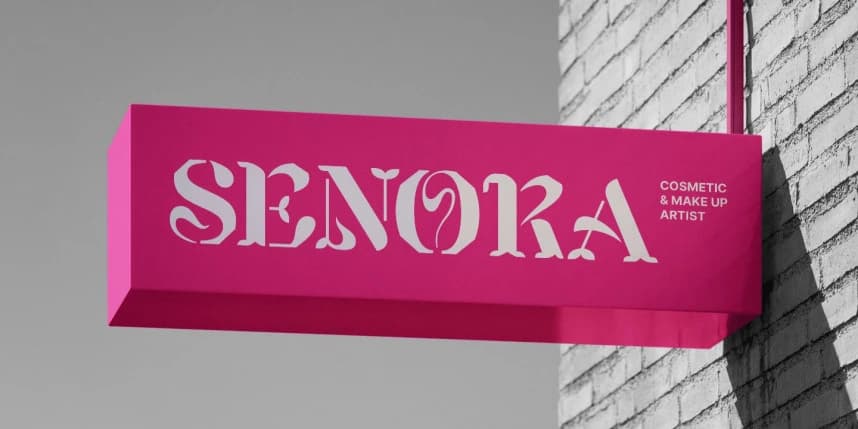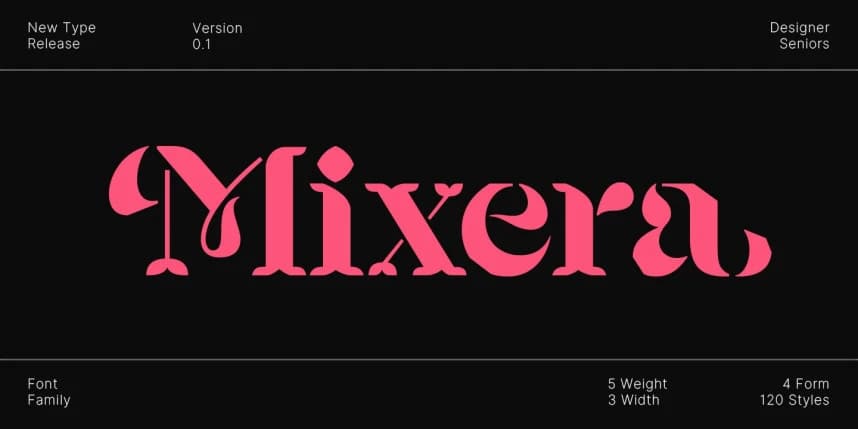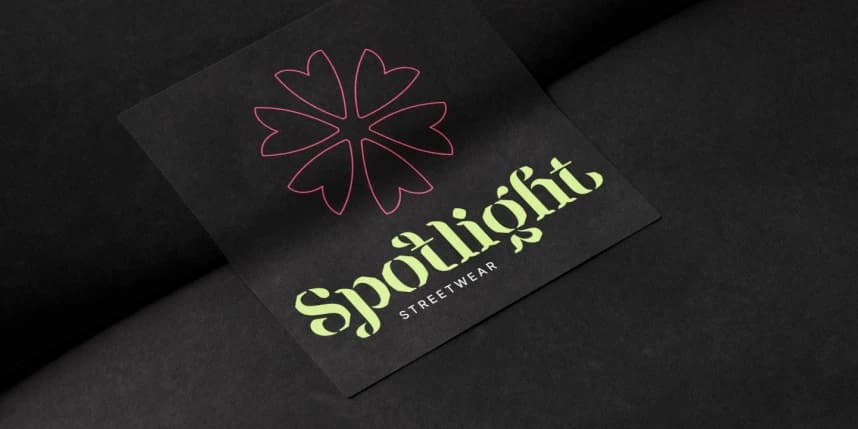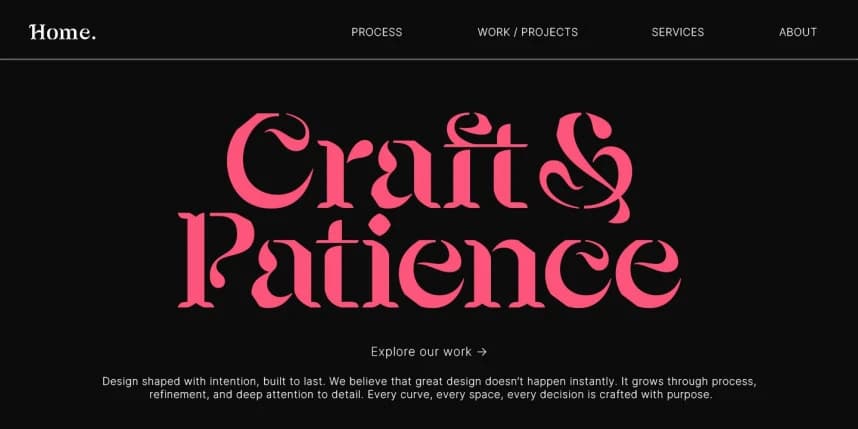
Mixera Font Family is a contemporary serif typeface that blends hybrid forms with a geometric foundation, resulting in an expressive and visually striking display style. Inspired by traditional tuscan letterforms